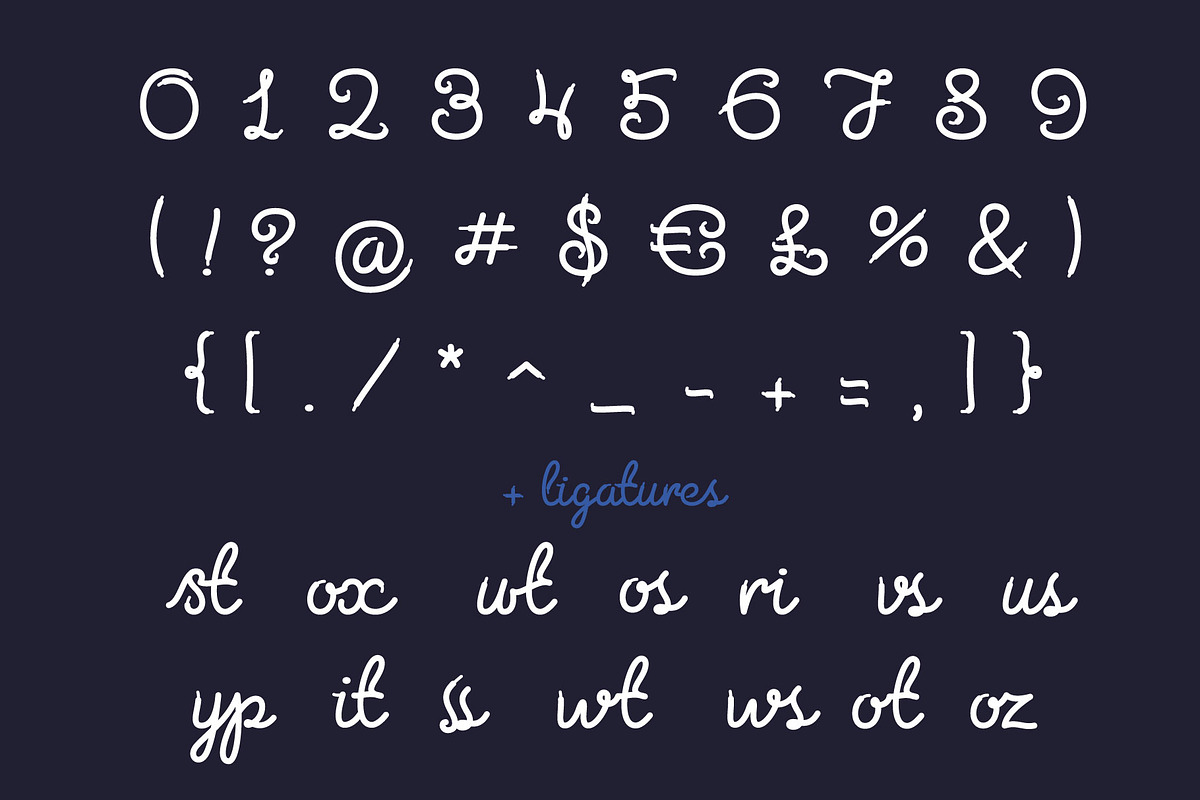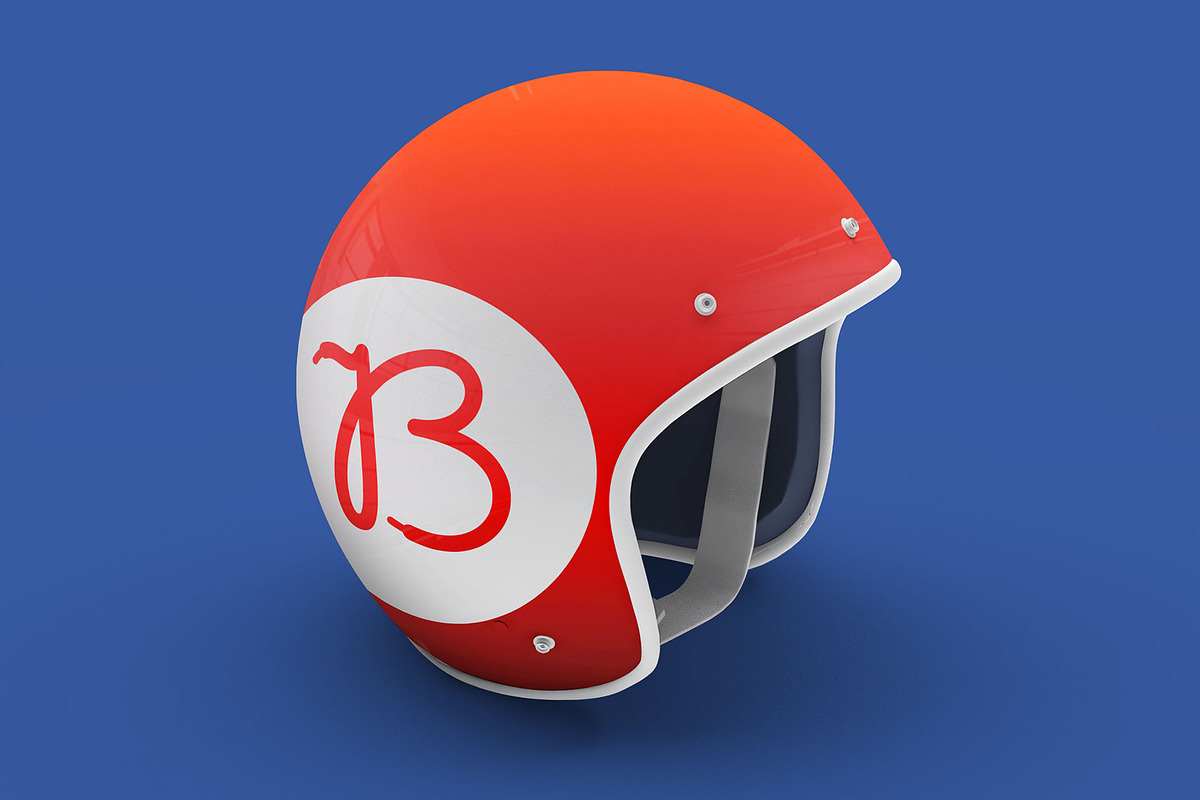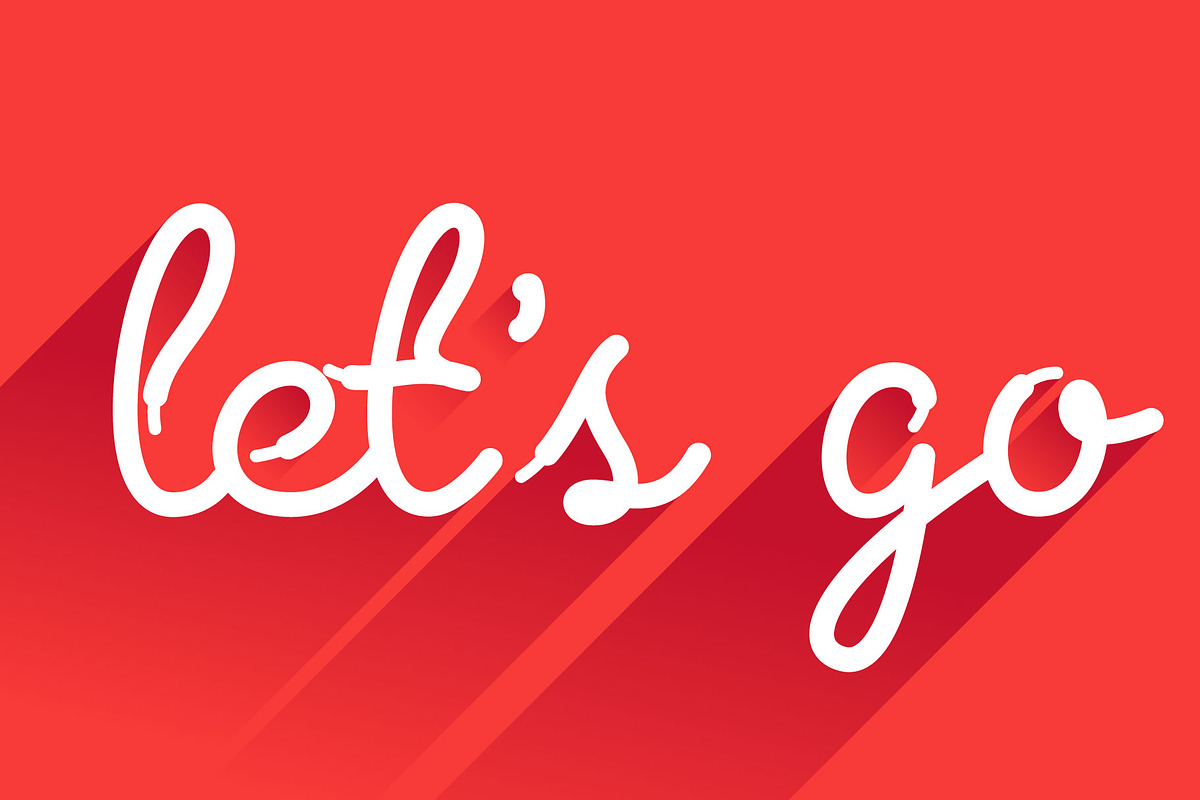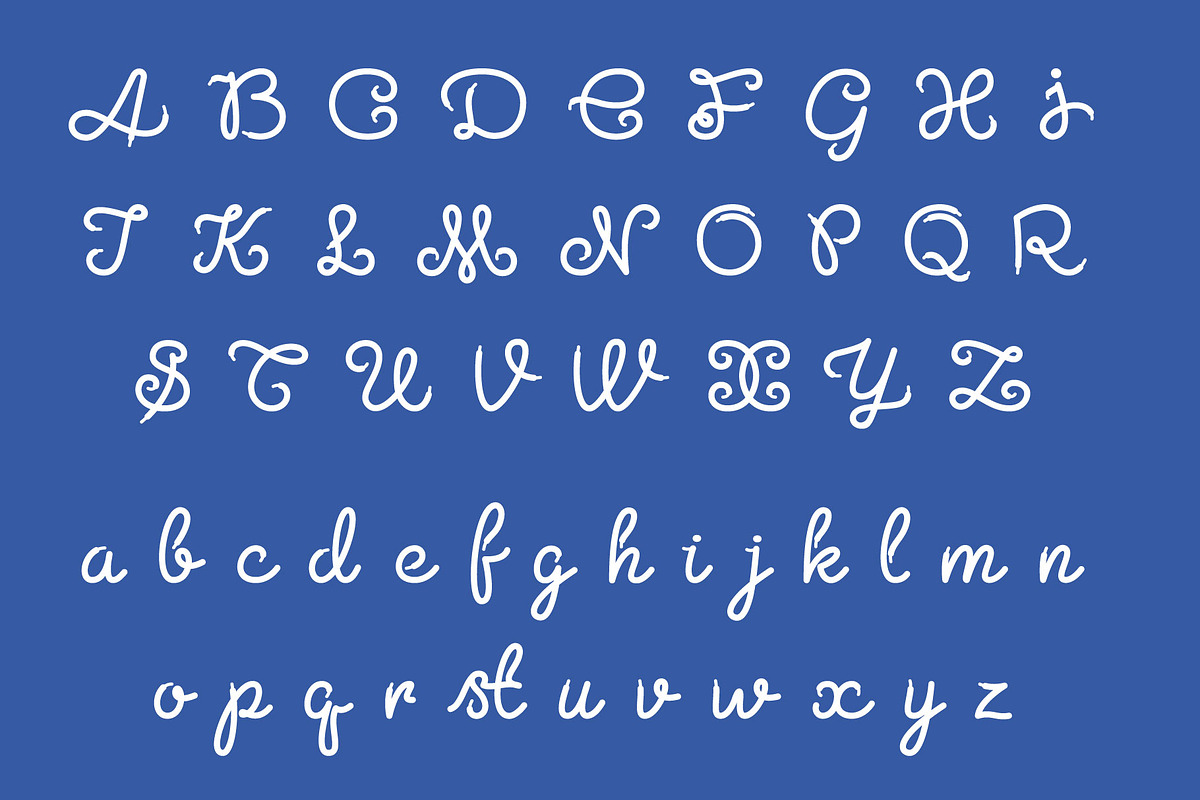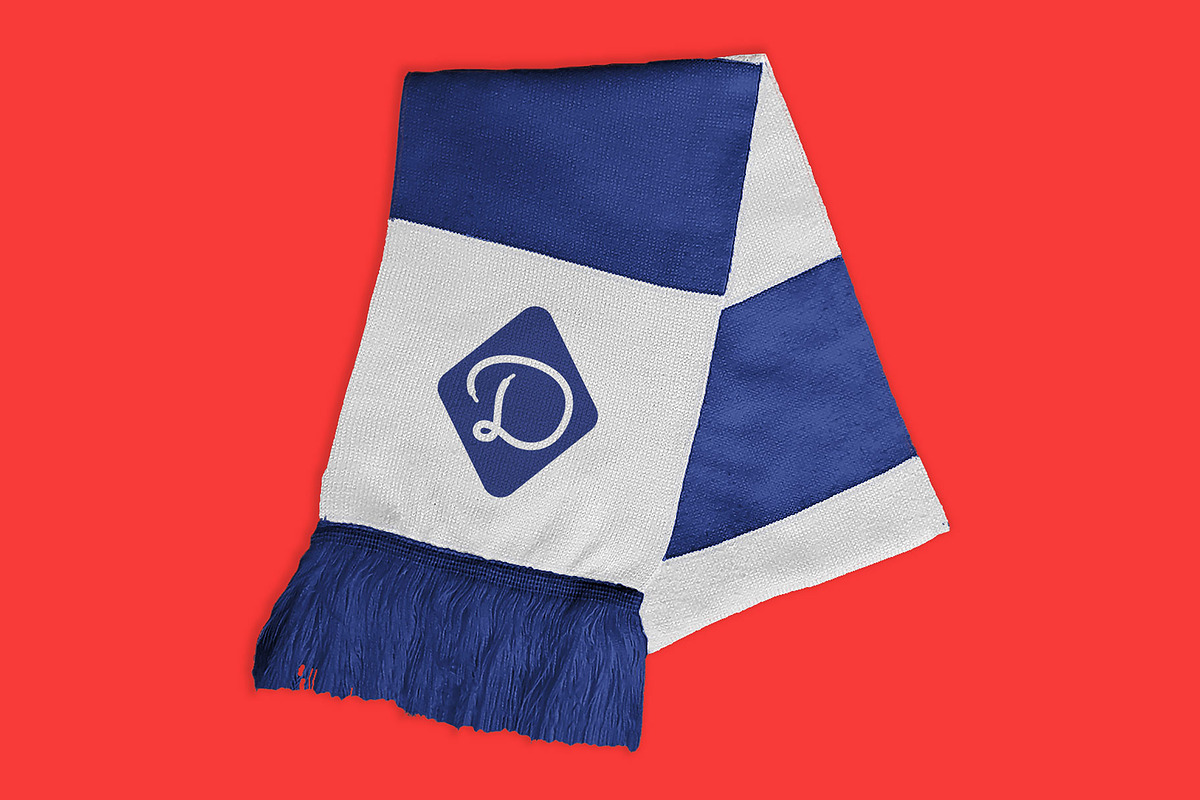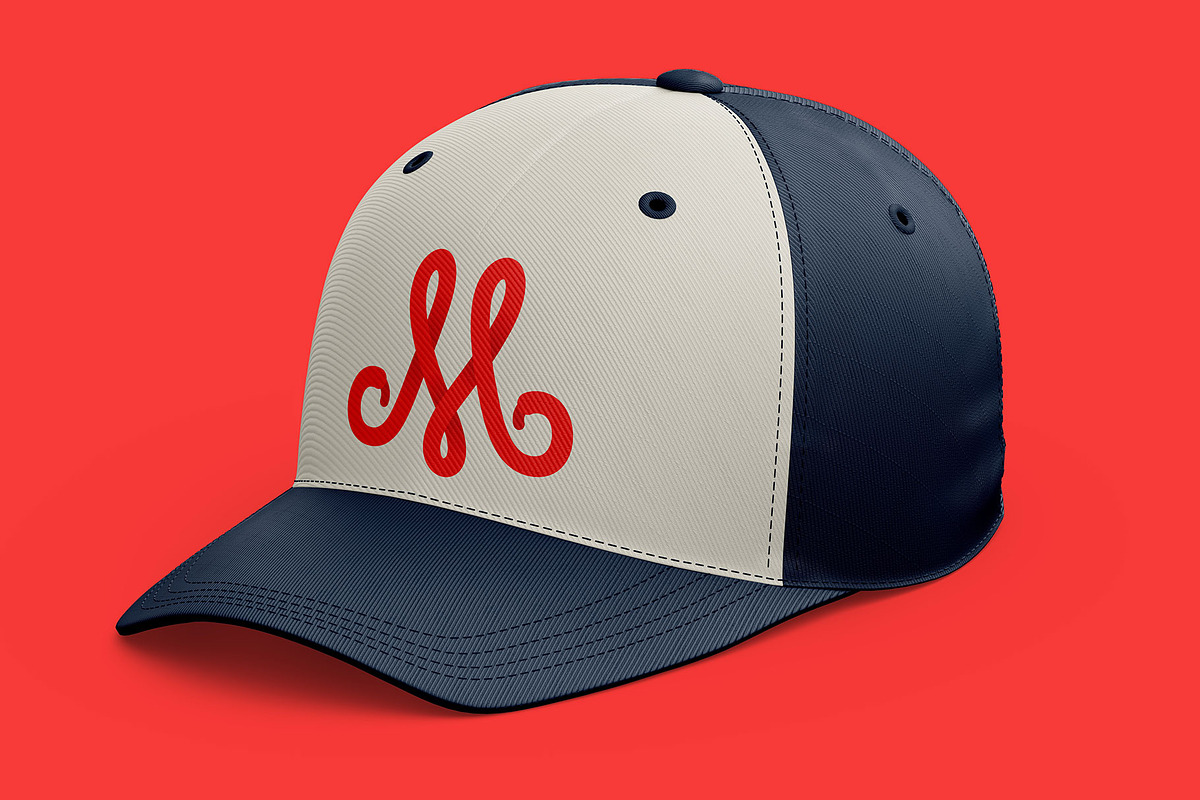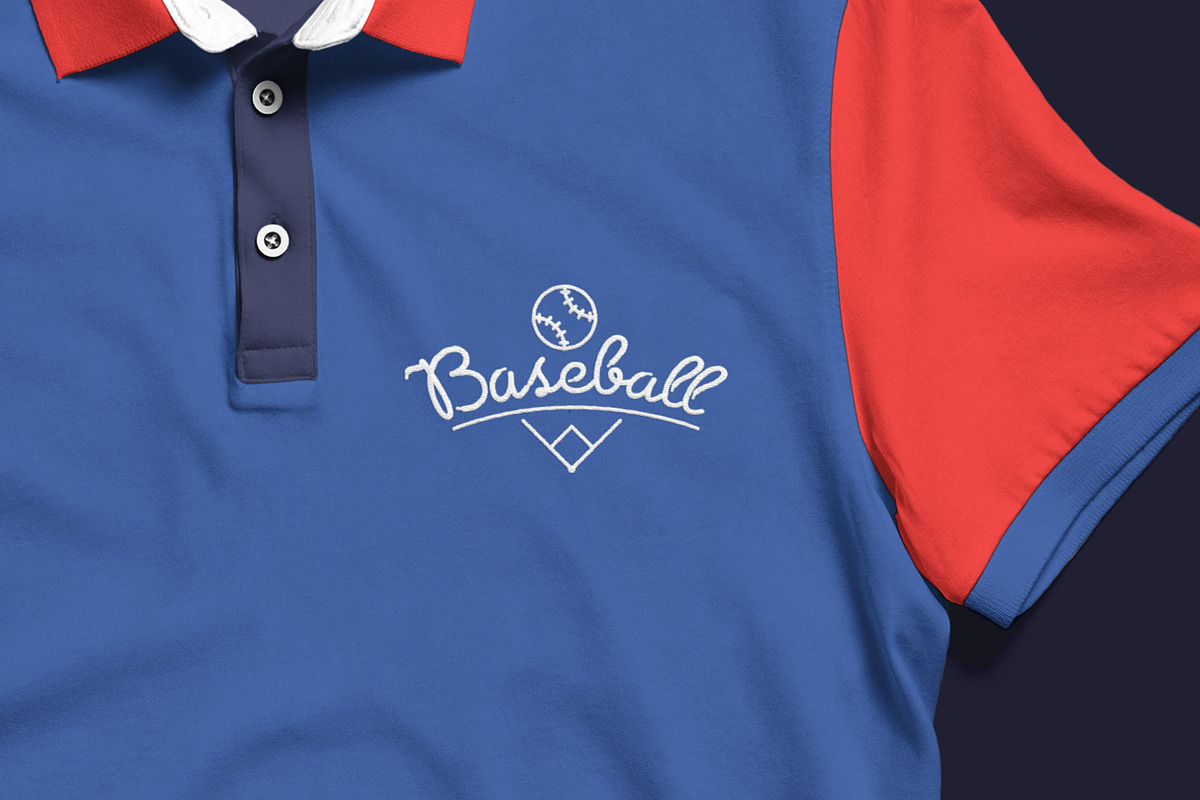
Lace line font
Hi, I’m the Lace font!
I’m drawn by hand. Each of my letters is a curved lace! I will perfectly fit sports design either it is a poster, a sports team logo, or even the score of the match.
I include Latin uppercase, lowercase, numbers and special symbols. So that I’m even more attractive my designer Kaer created a lot of great ligatures. I’m young and cool! Let's go, go, go!